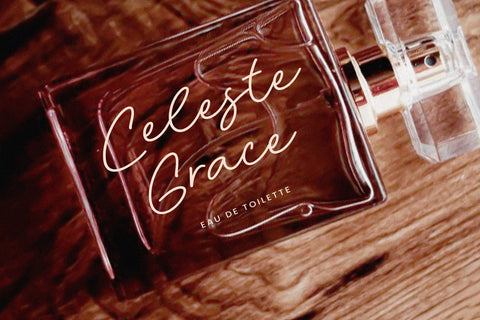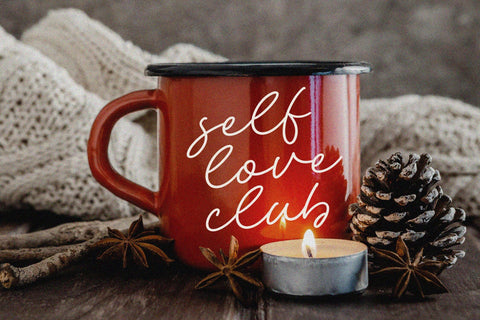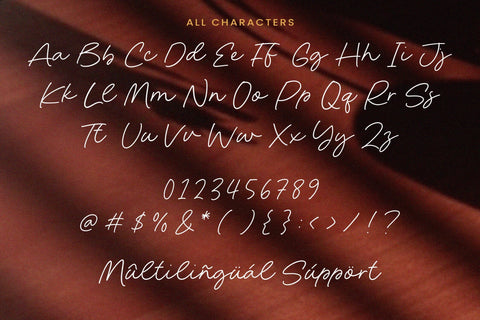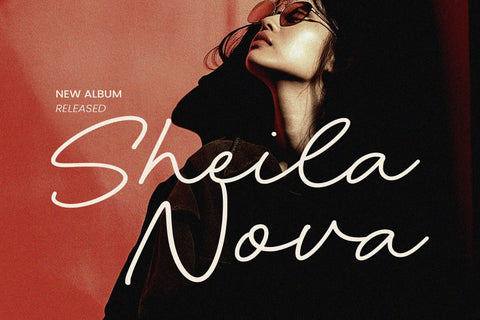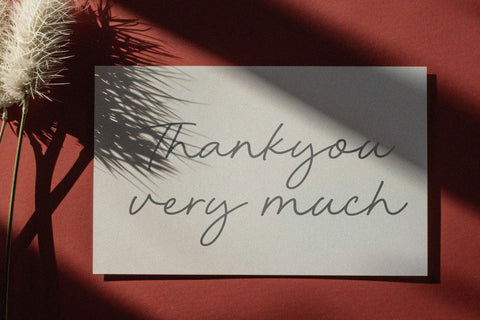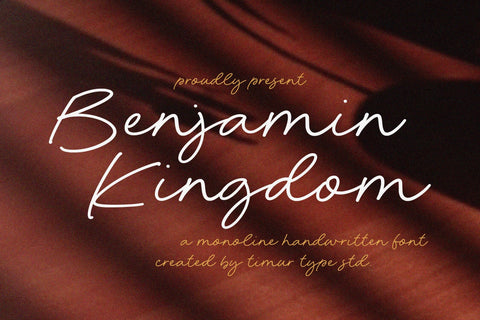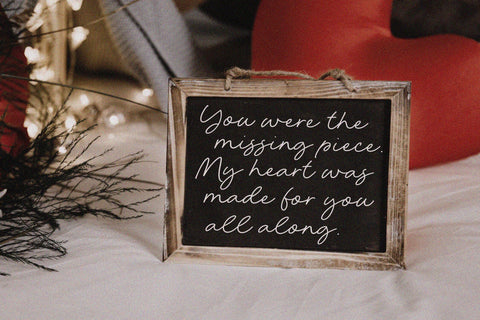
Benjamin Kingdom - Monoline Handwritten Font
Benjamin Kingdom is a Monoline Handwritten Font
This font is a stylish monoline handwritten font with an elegant and modern feel. Its smooth, flowing strokes and balanced letterforms make it perfect for logos, branding, invitations, and creative designs that require a touch. With a natural yet refined aesthetic, Benjamin Kingdom adds sophistication and warmth to any project.
Benjamin Kingdom Font also supports multilingualism